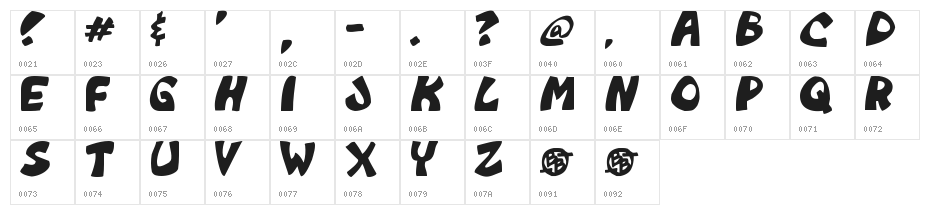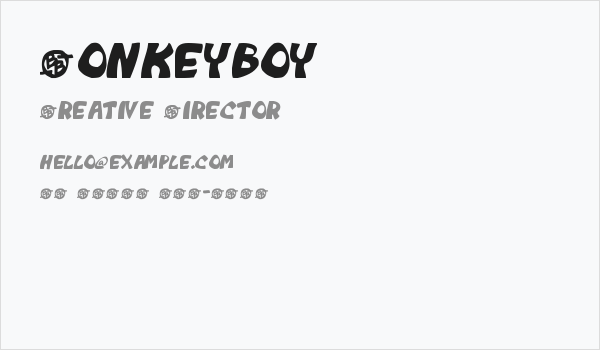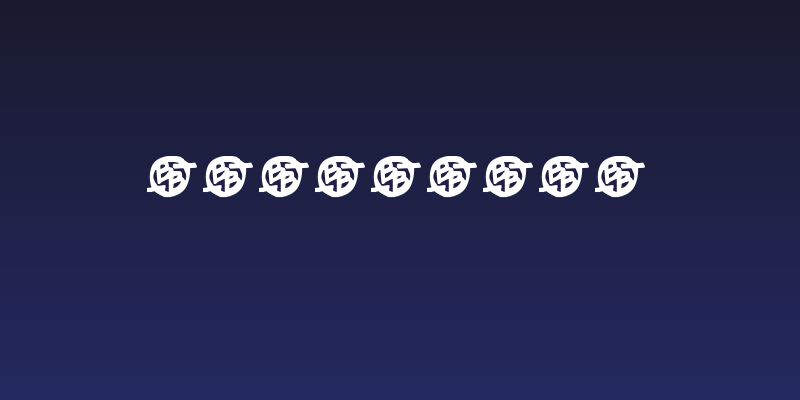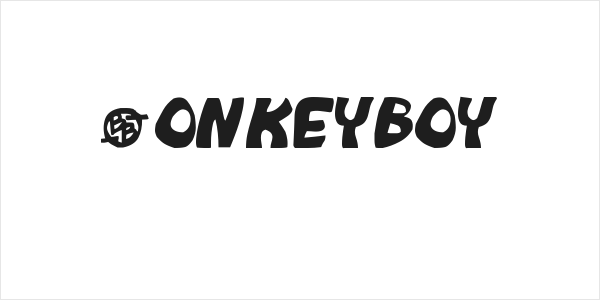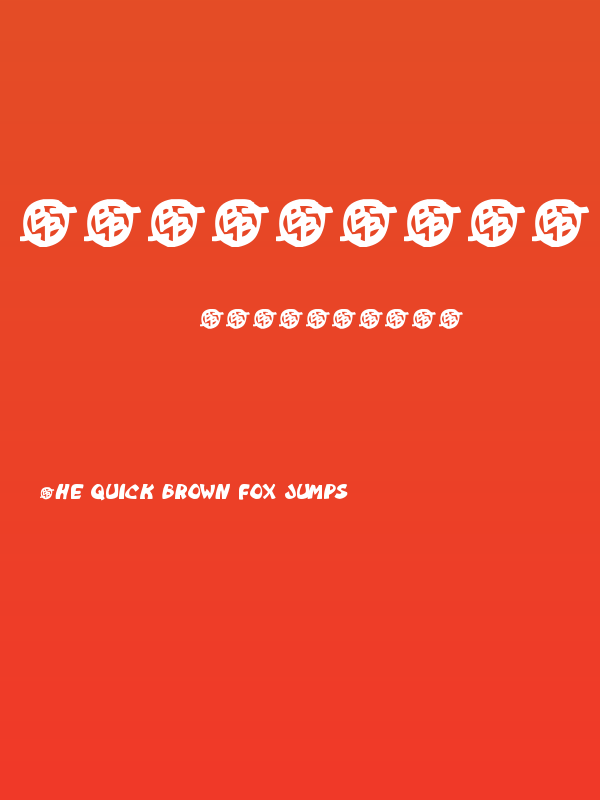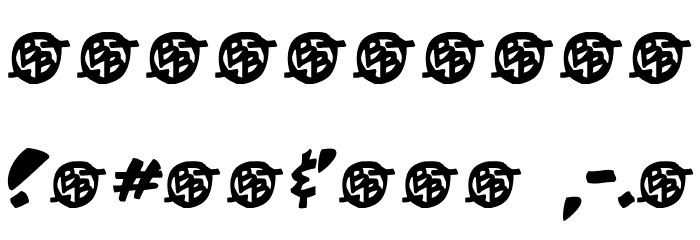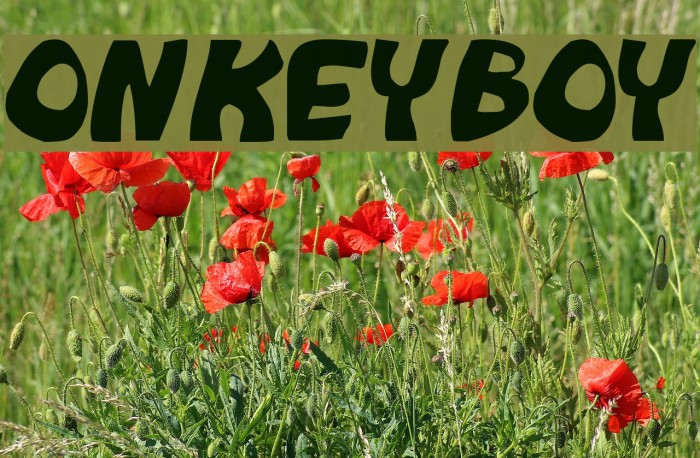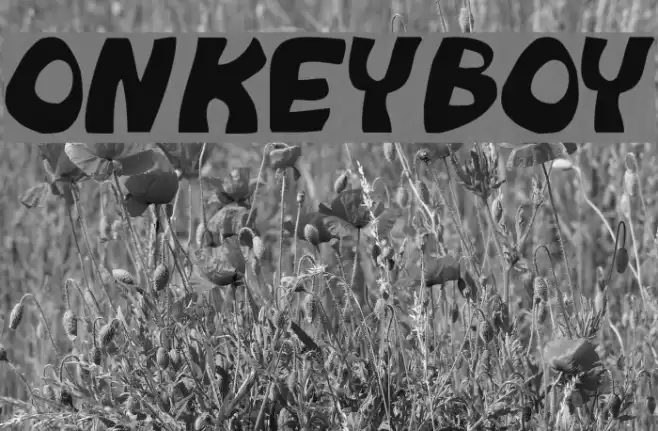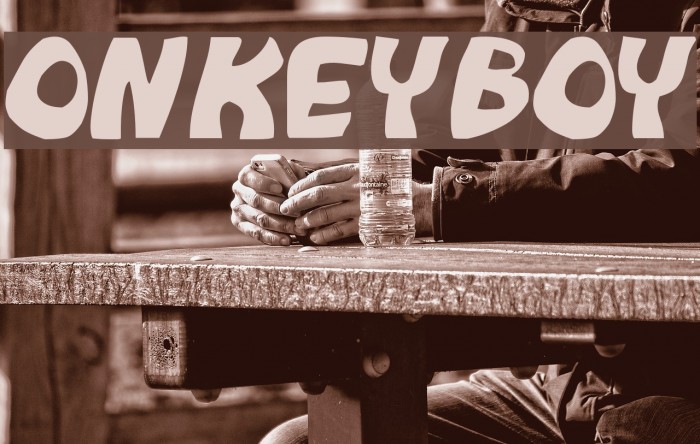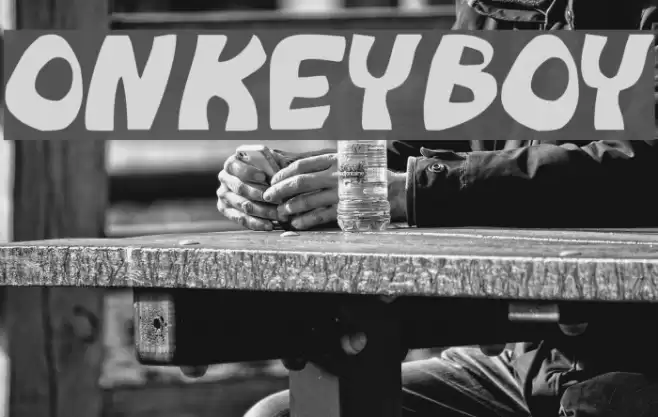
Monkeyboy Font
Monkeyboy Description
This font features a bold and playful design, characterized by its thick, uneven strokes and dynamic angles. The letters have a cartoonish, energetic appearance, making them stand out with a sense of movement and fun. The uppercase letters are particularly striking, with exaggerated curves and a slightly irregular baseline that adds to the whimsical feel. The font's unique style is further emphasized by its bold weight and high contrast between thick and thin strokes. It is ideal for projects that require a lively and eye-catching typeface.
| Overall Style | Playful, Cartoonish |
| Proposed Projects | Ideal for children's books, comic strips, playful branding, and eye-catching posters. |